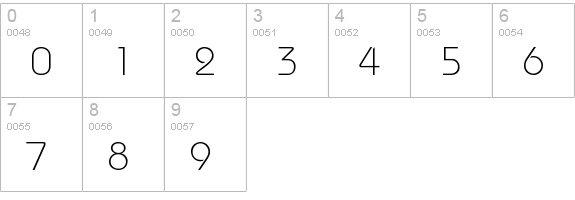
BahamasLight Font Details
Introducing BahamasLight font, a charming and elegant typeface that exudes a sense of sophistication and grace. With its delicate curves and stylish appearance, BahamasLight is perfect for adding a touch of class to any design project. This beautiful font is available for free download at FontsMarket.com, making it easily accessible to designers and creatives looking to elevate their work with a touch of luxury. Whether you're creating invitations, branding materials, or social media graphics, BahamasLight is sure to make a lasting impression. Embrace the timeless beauty of BahamasLight font and bring a touch of refinement to your designs today. Download this exquisite typeface for free at FontsMarket.com and let your creativity shine.